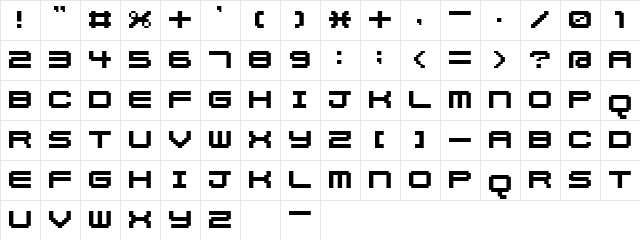
11px2bus Regular
Design Context for 11px2bus Typeface
11px2bus offers clean, dependable letterforms without strong stylistic allegiance, making it a practical choice for designers who need flexibility.